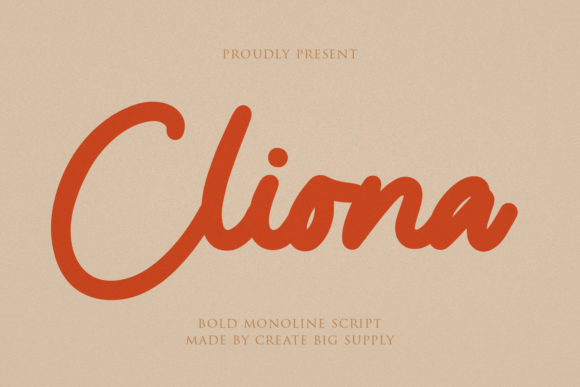
Cliona Script: A Bold Font for Creative Expression and Professional Design
Cliona Script is a bold script font that brings a sense of elegance and strength to any design. Its flowing curves and confident strokes make it ideal for a wide range of creative applications, from branding to advertising. Whether you're designing a logo, packaging, or marketing materials, Cliona Script can add a unique personality that stands out in today's competitive visual landscape.
Real-World Applications of Cliona Script
The versatility of Cliona Script makes it suitable for various industries and purposes. Here are some real-world scenarios where this font shines:
- Branding Designs: Use Cliona Script to create a memorable brand identity. It works well for logos that need to convey both sophistication and strength. For instance, a luxury fashion brand might use it to give their name a touch of refinement.
- Product Packaging: This font adds an artistic flair to product labels and packaging. A skincare company could use Cliona Script on their bottle labels to evoke a sense of natural beauty and confidence.
- Marketing Materials: From brochures to posters, Cliona Script can be used to grab attention. Its bold nature ensures that headlines stand out, making your message more impactful.
- Advertising: In digital and print ads, the fontβs readability and style help in creating eye-catching visuals. A restaurant promoting a new menu might use Cliona Script for their tagline to draw customers in.
- Business Cards: A business card with Cliona Script can leave a lasting impression. It's perfect for professionals who want to express creativity while maintaining a professional image.
Who Can Benefit from Using Cliona Script?
Cliona Script is not just for designers; it can be a valuable tool for anyone looking to enhance their visual communication. Hereβs how different users may find it useful:
- Entrepreneurs: Starting a new business? A custom logo using Cliona Script can help establish a strong brand presence right from the beginning.
- Marketers: When crafting promotional content, the font's boldness helps in emphasizing key messages and drawing attention to offers or calls to action.
- Artists and Creatives: For those working in graphic design, illustration, or typography, Cliona Script provides a versatile option that blends artistry with functionality.
- Small Business Owners: Whether it's signage, menus, or social media posts, Cliona Script can help small businesses stand out in a crowded market.
Practical Examples and Observations
Consider a boutique hotel that wants to revamp its branding. By incorporating Cliona Script into their logo and website headers, they can convey a sense of luxury and exclusivity. Similarly, a fitness studio might use the font on their flyers and social media banners to project confidence and energy.
In another scenario, a local bakery could use Cliona Script on their packaging and signage to create a warm, inviting feel that speaks to their community. The fontβs readability ensures that even from a distance, the brand name remains clear and appealing.
Considerations Before Using Cliona Script
While Cliona Script is highly versatile, there are a few things to keep in mind before applying it to your designs:
- Legibility: Although itβs a script font, ensure that the text remains readable, especially in smaller sizes or when used in long paragraphs.
- Contrast: Pairing Cliona Script with a complementary sans-serif font can improve overall balance and legibility in multi-font layouts.
- Context: Consider the tone and message of your design. While bold and elegant, Cliona Script may not be suitable for all contexts, such as formal documents or technical manuals.
Strengths and Limitations of Cliona Script
The main strengths of Cliona Script lie in its bold character and aesthetic appeal. It's easy to read at larger sizes and can be customized to fit a variety of design styles. Its versatility allows it to be used across different platforms, including print and digital media.
However, like any script font, it has limitations. It may not be the best choice for body text due to its stylized nature. Additionally, it may not be as effective in low-resolution settings or when viewed from a distance, so careful consideration should be given to its placement and size.
Despite these limitations, Cliona Script remains a powerful tool for designers and creatives looking to make a bold statement through typography. Its ability to blend strength with elegance makes it a go-to choice for those seeking to elevate their visual projects.